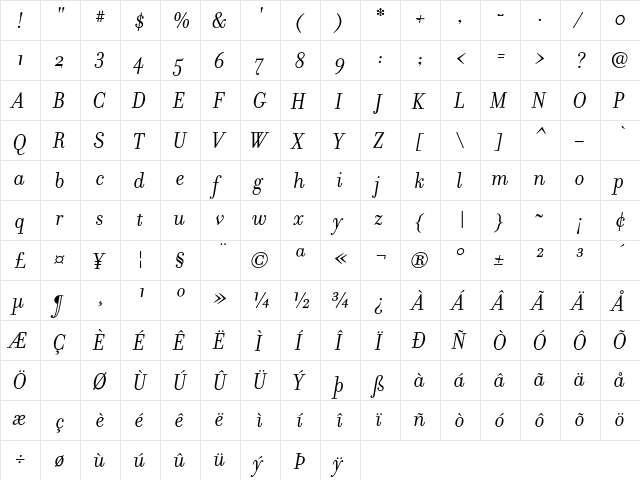
FilosofiaItalic Italic
Design Context for FilosofiaItalic Typeface
FilosofiaItalic takes a measured approach to typography — its balanced proportions and neutral character make it a reliable workhorse for both digital and print work. Its italic angle brings a sense of urgency and motion to the letterforms.
Pro Tip: Try FilosofiaItalic for annotation and caption copy alongside an upright companion — the contrast in angle creates a dynamic but ordered typographic system.